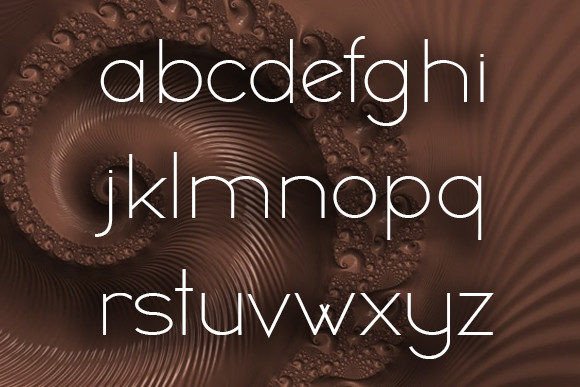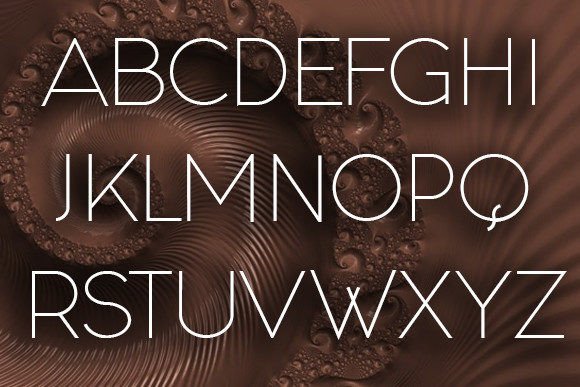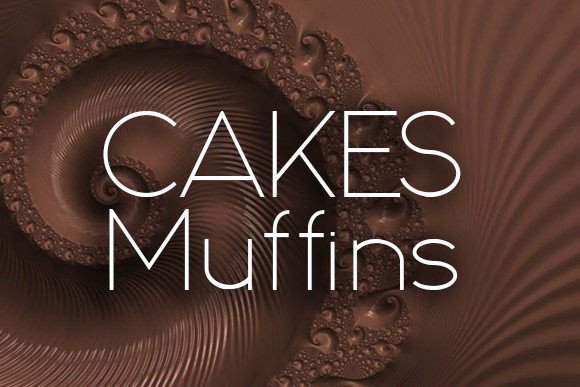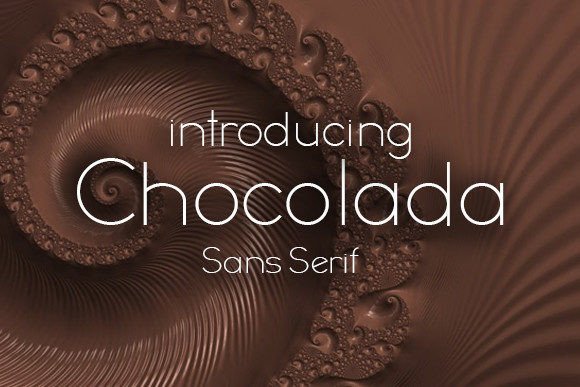
Introducing Chocolada Font: Elevate Your Designs with a Stylish Sans Serif
Are you on the hunt for a font that adds a touch of sophistication and style to your designs? Look no further than Chocolada, a stunning Sans Serif font that’s perfect for making your projects stand out. In this article, we’ll dive into the world of Chocolada Font, exploring its features, uses, and benefits for designers and crafters alike.
What is Chocolada Font?
Chocolada is a modern Sans Serif font designed to bring a sense of elegance and refinement to your designs. Its clean lines, subtle curves, and balanced proportions make it an excellent choice for a wide range of applications, from digital projects to print materials.
Key Features of Chocolada Font
- Stylish Design: Chocolada boasts a sleek and contemporary design that’s sure to turn heads. Its Sans Serif style gives it a clean and minimalist look that’s perfect for modern designs.
- Versatile: This font is incredibly versatile, making it suitable for various design projects, including banners, headlines, posters, and more.
- Easy to Read: Chocolada’s clear and legible design ensures that your text is easy to read, even at smaller font sizes.
- High-Quality: This font is designed with high-quality in mind, making it perfect for professional designs and projects.
Uses of Chocolada Font
So, how can you use Chocolada Font to elevate your designs? Here are some ideas to get you started:
- Banners: Add a touch of style to your banners with Chocolada Font. Its bold and eye-catching design is perfect for grabbing attention.
- Headlines: Make your headlines stand out with Chocolada’s sleek and modern design.
- Posters: Create stunning posters with Chocolada Font. Its clear and legible design ensures that your message gets across effectively.
- Digital Projects: Use Chocolada Font in your digital projects, such as website designs, social media graphics, and more.
Benefits of Using Chocolada Font
So, why should you choose Chocolada Font for your designs? Here are some benefits to consider:
- Unique Design: Chocolada Font offers a unique and stylish design that sets it apart from other fonts.
- Time-Saving: With Chocolada Font, you can create stunning designs in no time. Its easy-to-read design and versatile style make it a great time-saving solution.
- Professional Results: Achieve professional results with Chocolada Font. Its high-quality design ensures that your projects look polished and refined.
Tips for Using Chocolada Font
To get the most out of Chocolada Font, here are some tips to keep in mind:
- Experiment with Sizes: Don’t be afraid to experiment with different font sizes to find the perfect fit for your design.
- Pair with Other Fonts: Try pairing Chocolada Font with other fonts to create a unique and visually appealing design.
- Use in Combination with Images: Use Chocolada Font in combination with images to create a stunning visual effect.
In conclusion, Chocolada Font is a stylish and versatile Sans Serif font that’s perfect for designers and crafters looking to elevate their designs. With its clean lines, subtle curves, and balanced proportions, Chocolada Font is sure to make your projects stand out. Whether you’re working on banners, headlines, posters, or digital projects, Chocolada Font is an excellent choice. So why wait? Give Chocolada Font a try today and take your designs to the next level!